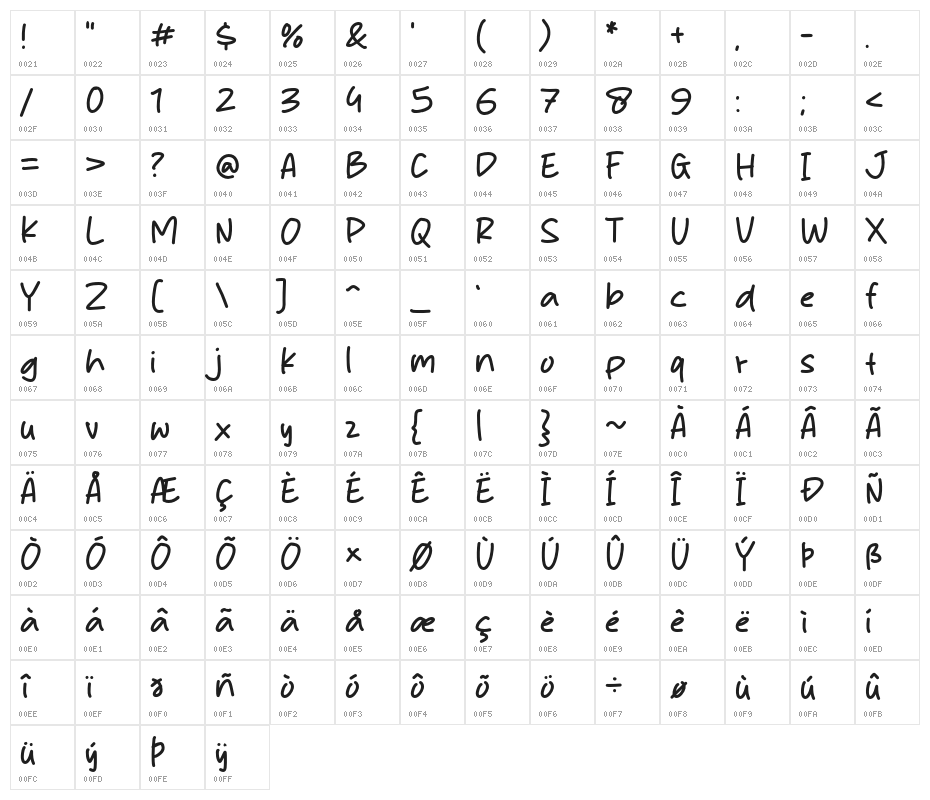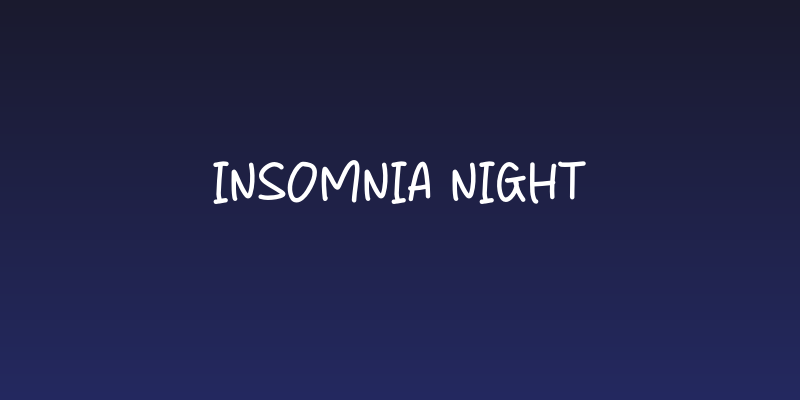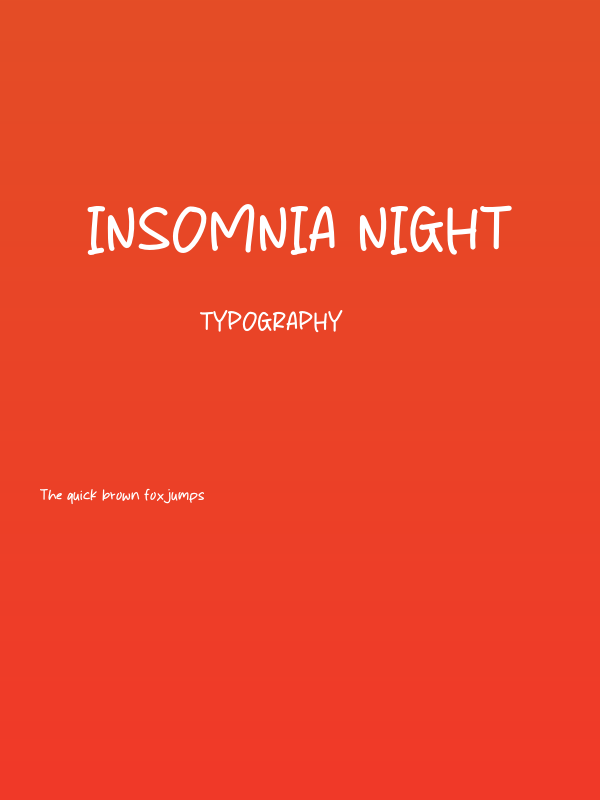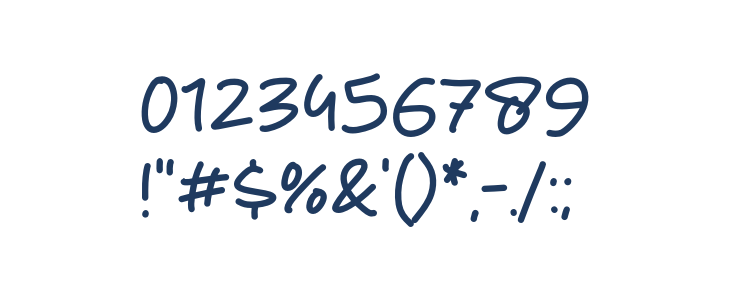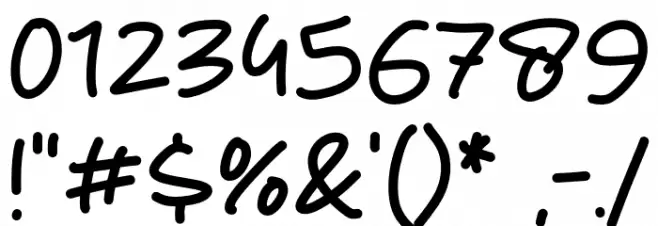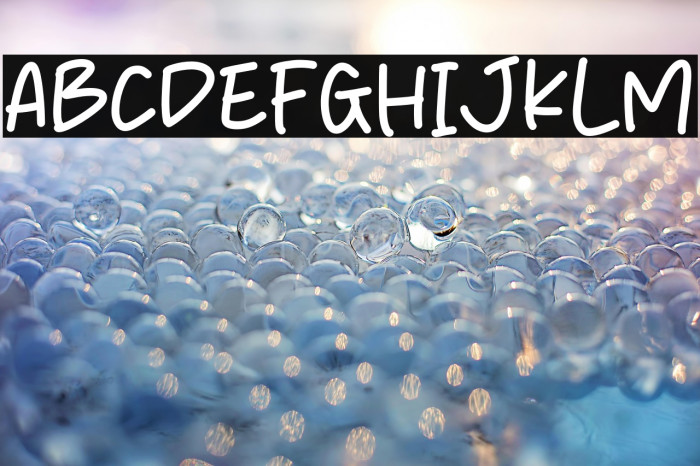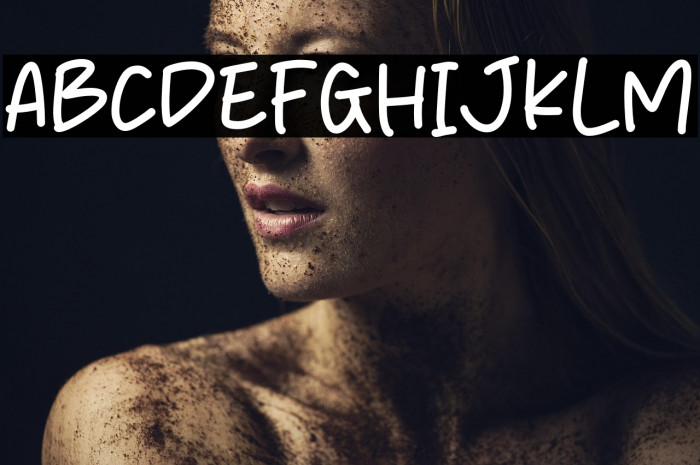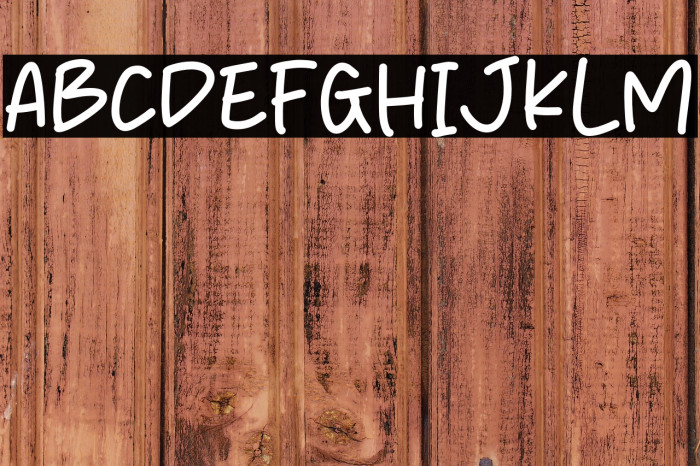
Insomnia Night Font
Insomnia Night Description
This font exudes a casual and approachable handwritten style, characterized by its smooth, flowing curves and slightly irregular letterforms. The uppercase and lowercase letters maintain a consistent height, contributing to a harmonious appearance. The numerals and special characters are crafted with the same playful touch, ensuring uniformity across all glyphs. The strokes are moderately thick, providing a balanced weight that enhances readability while retaining a personal, informal charm. This font is ideal for projects that require a friendly and relaxed aesthetic, such as personal branding, invitations, or creative designs.
| Overall Style | Casual, Informal |
| Use Case | Logos, Invitations, Creative designs |
| Proposed Projects | Ideal for personal branding, invitations, greeting cards, and creative design projects. |